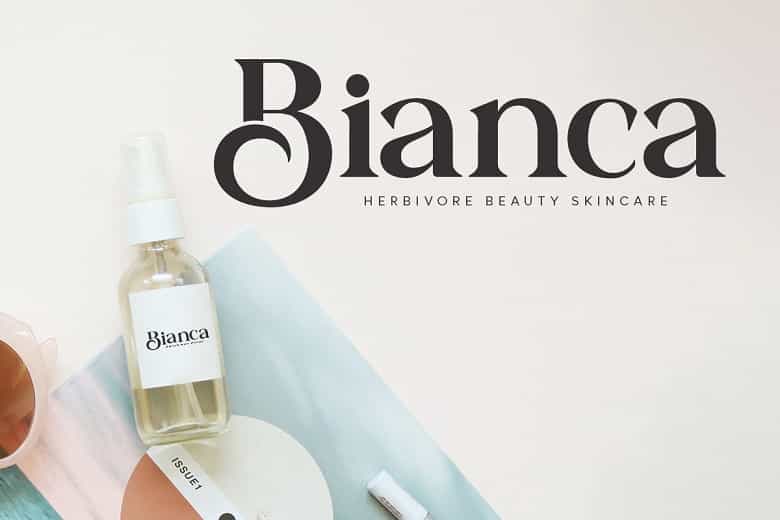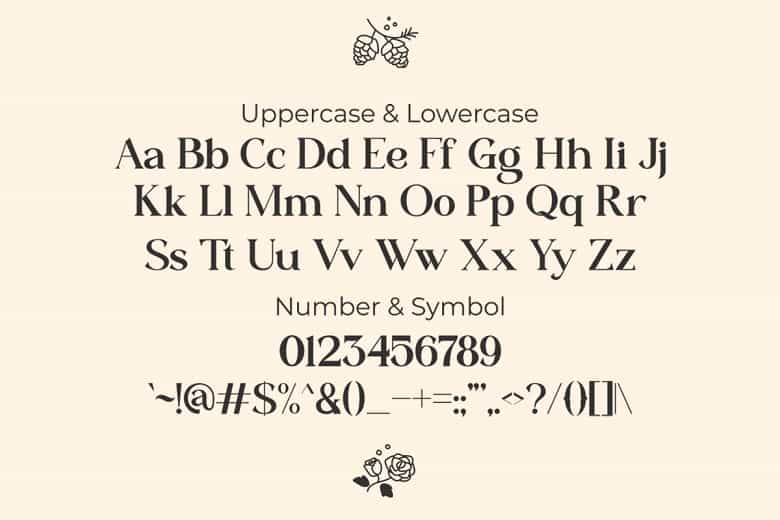
Jitter is a lovely modern serif font. It is suitable for classy and upscale logos, magazines, fashion industries, cosmetic industries, fashion adverts, modern adverts, invitation cards, art quotes, home designs, book/titles, special occasions, and many more.